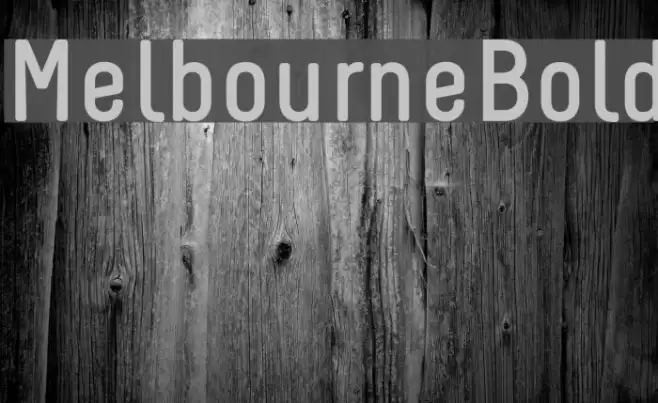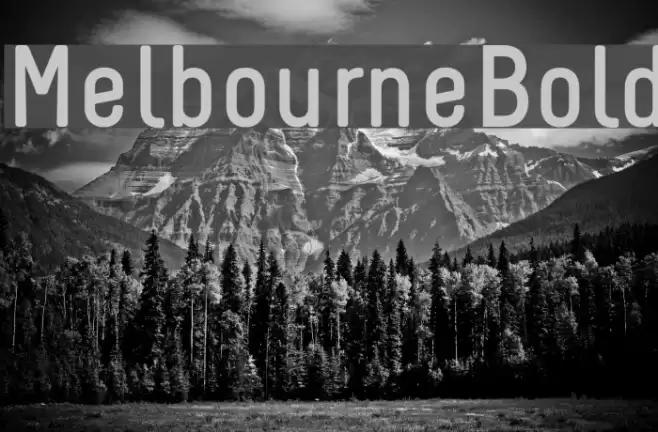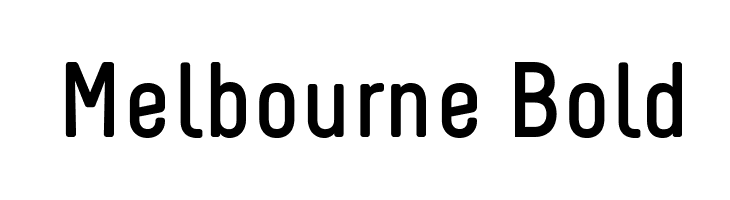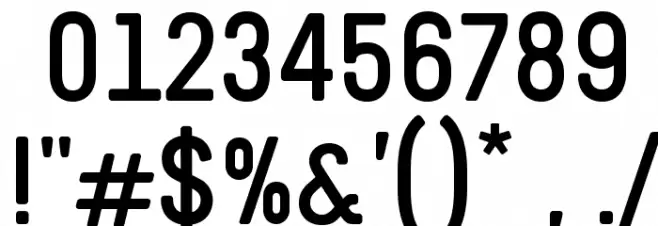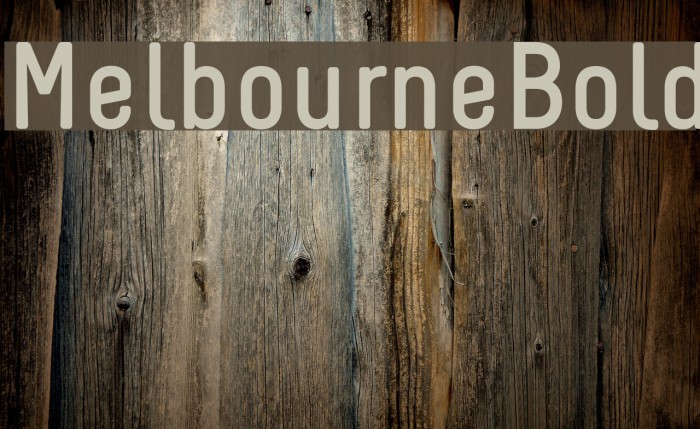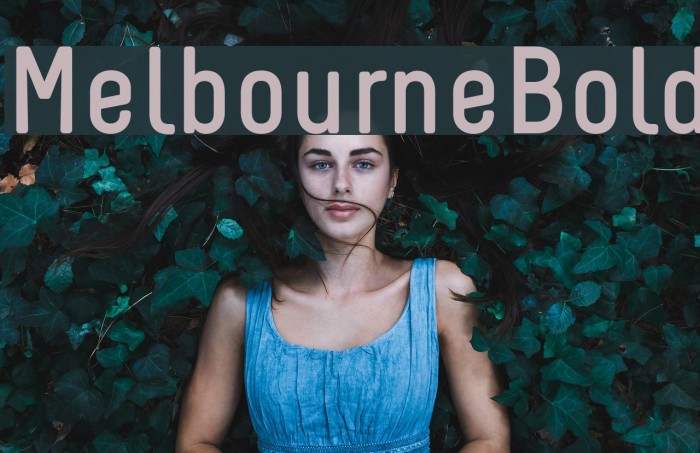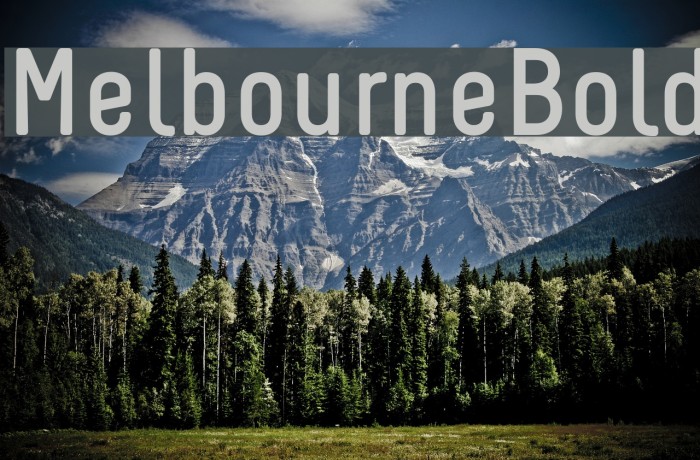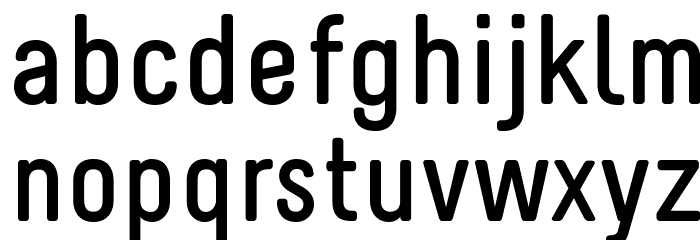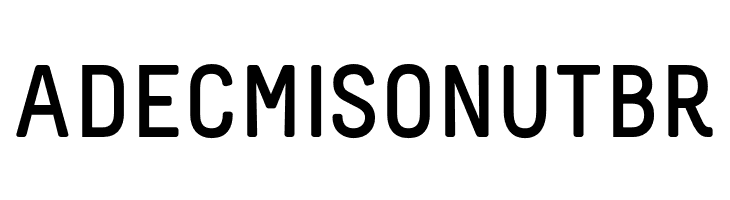
Melbourne-Bold
This font features a clean and modern sans-serif design with bold strokes, providing a strong and confident appearance. The characters are well-proportioned, with a consistent weight that enhances readability. The uppercase letters are slightly taller than the lowercase, offering a balanced look. The numerals are clear and distinct, making them suitable for various applications. The special characters are designed to complement the overall style, maintaining uniformity across the set. This font's simplicity and boldness make it versatile for both digital and print media.
A bold, modern sans-serif font with clean lines and strong readability.
- Proposed Projects: Ideal for branding, headlines, posters, and digital content where a modern and bold statement is needed.
- Use Case: Headlines, Logos, Posters